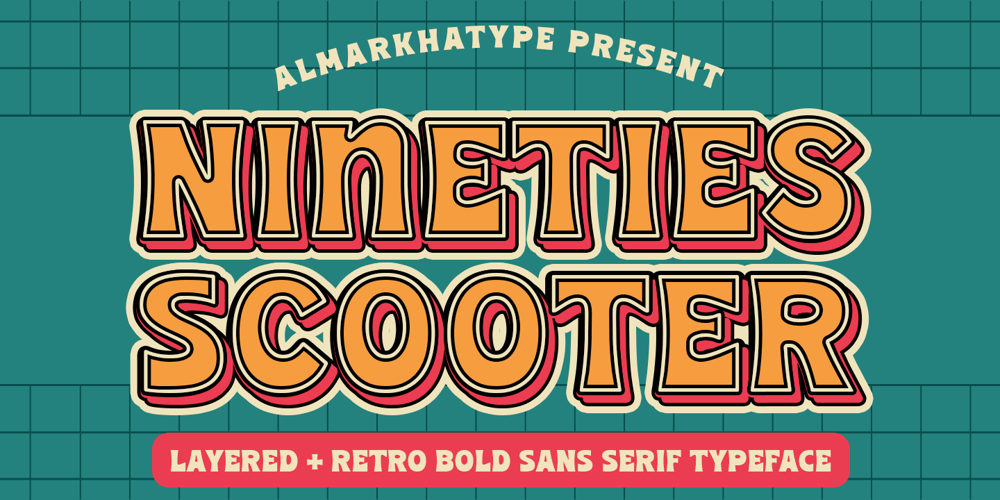
Nineties Scooter Font Family was designed by Abdul Malik Wisnu, Rivo Adriansyah and published by Almarkha Type. Nineties Scooter contains 3 styles and family package options. Elevate your designs with 90’s Scooter, a retro reverse contrast font crafted for playfulness and versatility. Tailored for attention-grabbing designs, it’s the go-to choice for brands seeking to make a bold statement and stand out. Featuring support for Latin multilingual characters, 90’s Scooter seamlessly integrates into all your international design projects. Its playful and youthful tone lends itself perfectly to crafting memorable designs, be it for a food brand or a lively event. Get ready to infuse your designs with vibrancy using this bold and playful font!